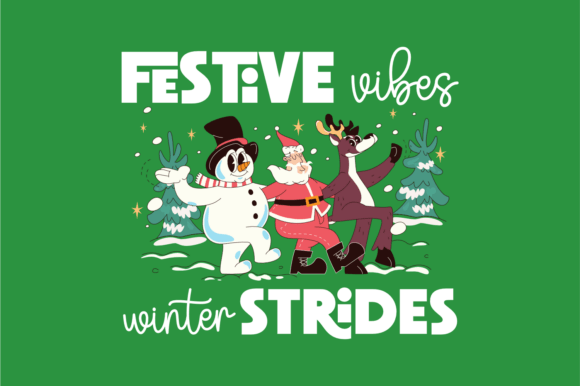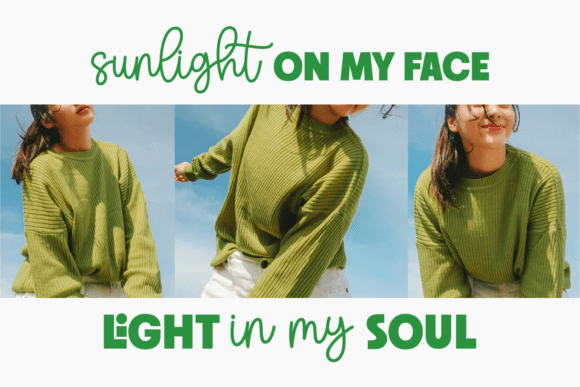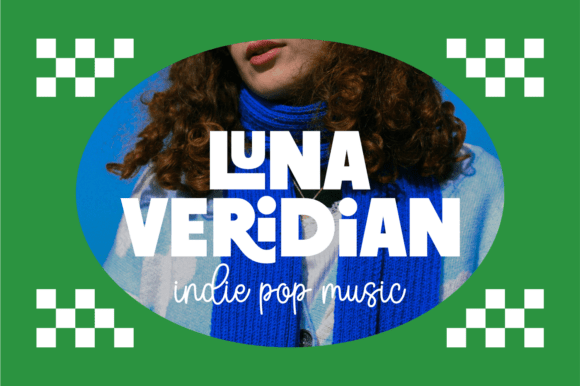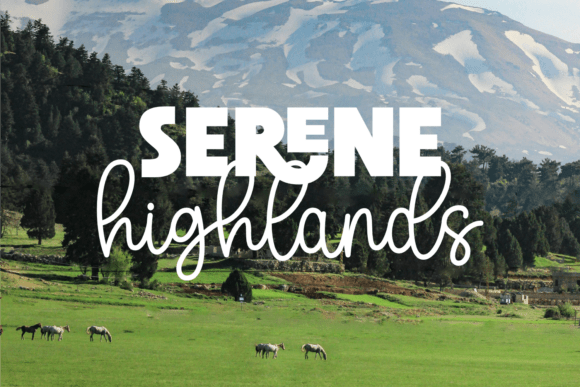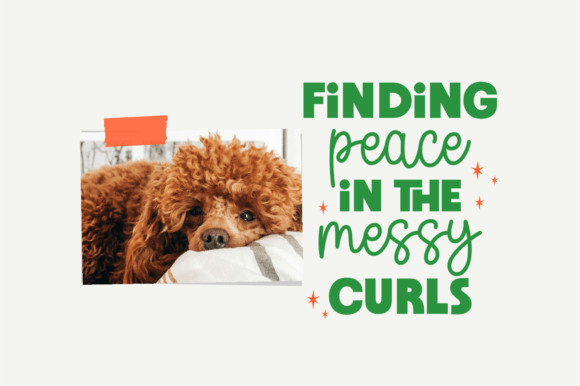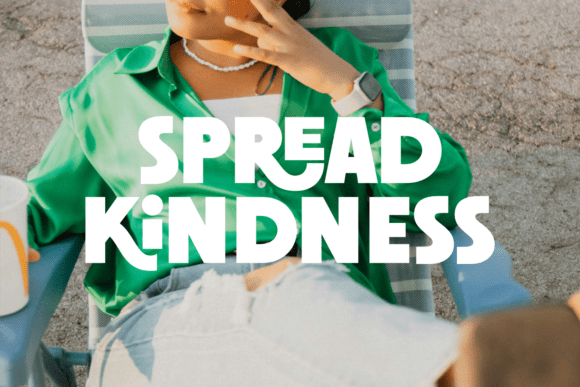
Beautiful Caroline Font: A Harmonious Blend of Playful Sophistication
In the world of typography, finding the perfect balance between charm and modern design can be a daunting task. However, with Beautiful Caroline, a premium font duo, you can elevate your creative projects with a sense of effortless style and cohesive professional polish. This meticulously crafted combination pairs a fluid monoline script with a bold, character-filled display sans, creating a visual dialogue that is both trendy and timeless.
The Monoline Script: A Handcrafted, Organic Feel
The monoline script in Beautiful Caroline offers a handcrafted, organic feel with its consistent line weight and graceful curves. This fluid script is perfect for adding a touch of elegance and sophistication to any design project. The consistent line weight creates a sense of harmony and balance, making it ideal for use in headings, titles, and quotes. The gentle curves and rounded edges of the script also give it a friendly and approachable feel, making it perfect for designs that require a personal touch.
The Display Sans: A Sturdy, Geometric Foundation
In contrast, the display sans in Beautiful Caroline provides a sturdy, geometric foundation with unique, playful letterforms. This bold font is designed to make a statement, with clean lines and a confident demeanor. The display sans is perfect for use in headlines, titles, and other design elements that require a strong visual presence. The unique letterforms add a touch of personality and whimsy, making it ideal for designs that require a bit of flair.
A Perfect Pairing: Balance and Harmony
When used together, the monoline script and display sans in Beautiful Caroline create a perfect pairing of balance and harmony. The fluid script and bold sans work together in harmony, creating a visual dialogue that is both trendy and timeless. This balance of contrasting styles makes Beautiful Caroline a versatile font duo that can be used in a wide range of design applications, from branding and packaging to digital media and print.
Effortless Style and Cohesive Professional Polish
Beautiful Caroline is more than just a font – it’s a design solution for those who want their work to feel both friendly and fashion forward. The font duo is designed to bring a sense of effortless style and cohesive professional polish to any creative project. Whether you’re a designer, craft, or DIY enthusiast, Beautiful Caroline provides the perfect tools to elevate your creative assets and take your work to the next level.
Key Features of Beautiful Caroline
- Premium font duo consisting of a fluid monoline script and a bold, character-filled display sans
- Meticulously crafted to bring a sense of effortless style and cohesive professional polish to any creative project
- Monoline script offers a handcrafted, organic feel with consistent line weight and graceful curves
- Display sans provides a sturdy, geometric foundation with unique, playful letterforms
- Perfect for use in a wide range of design applications, from branding and packaging to digital media and print
Why Choose Beautiful Caroline?
There are many reasons why Beautiful Caroline stands out from the crowd. Here are just a few:
- Unique and Versatile: Beautiful Caroline offers a unique and versatile font duo that can be used in a wide range of design applications.
- Effortless Style: The font duo is designed to bring a sense of effortless style and cohesive professional polish to any creative project.
- High-Quality Design: Beautiful Caroline is meticulously crafted with attention to detail, ensuring a high-quality design that will elevate your creative assets.
- User-Friendly: The font duo is easy to use and works seamlessly with a variety of design software.
In conclusion, Beautiful Caroline is a premium font duo that offers a harmonious blend of playful sophistication. With its fluid monoline script and bold, character-filled display sans, this font duo is perfect for designers, crafts, and DIY enthusiasts who want to elevate their creative assets and take their work to the next level. Whether you’re looking for a font that’s trendy and timeless, friendly and fashion forward, Beautiful Caroline is the perfect choice.